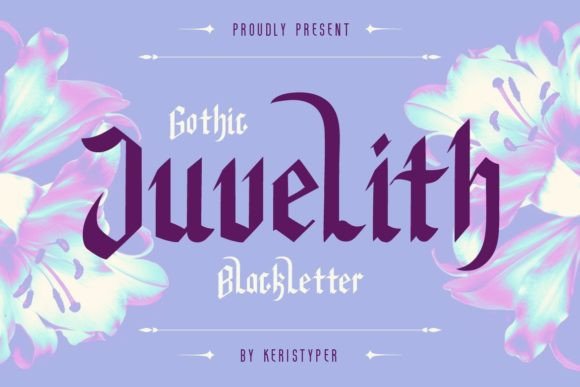
Introducing Juvelith Font, the perfect choice for those seeking the best font for old people. Created by the talented Keristyper, this modern blackletter font seamlessly blends contemporary design with the timeless allure of Old English Gothic Scriptures.
With its captivating aesthetic, Juvelith Font is guaranteed to leave a lasting impression. Its intricate details and elegant curves evoke a sense of nostalgia, making it ideal for various applications. Whether you're designing a logo, crafting captivating social media posts, or adding a touch of sophistication to movie or book titles, Juvelith Font has got you covered.
But that's not all - this font's versatility knows no bounds. It effortlessly adapts to any project, whether it's short text or long text letters. Need a secondary font to complement your existing sans or serif typefaces? Look no further than Juvelith Font. Its unique style adds a touch of intrigue and sophistication to your designs, ensuring they stand out from the crowd.
But what truly sets Juvelith Font apart is its ability to evoke emotions and connect with users. Its timeless design taps into our collective memory, evoking a sense of tradition, authenticity, and heritage. When users encounter your content, they'll be captivated by the charm of Juvelith Font, creating a memorable and impactful experience.